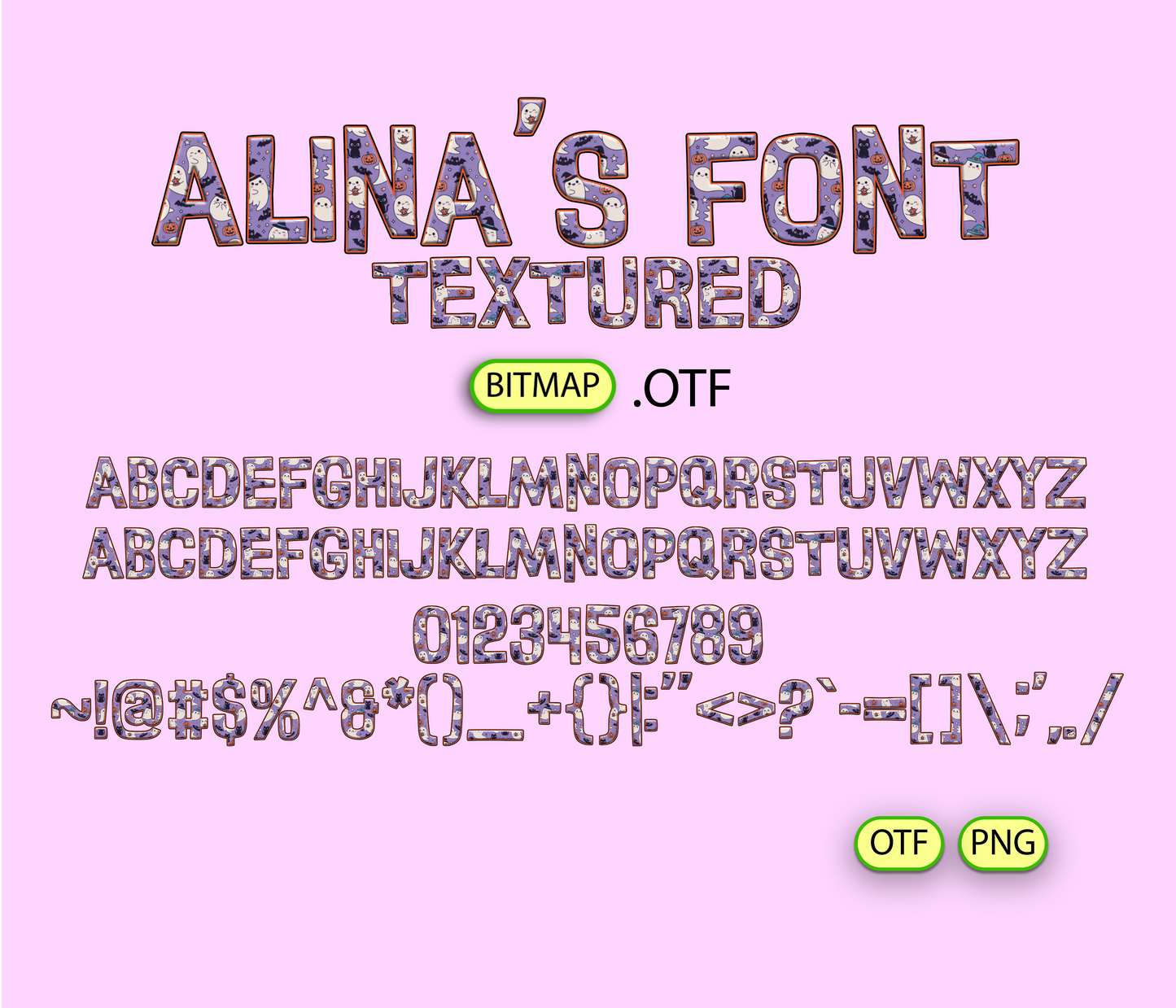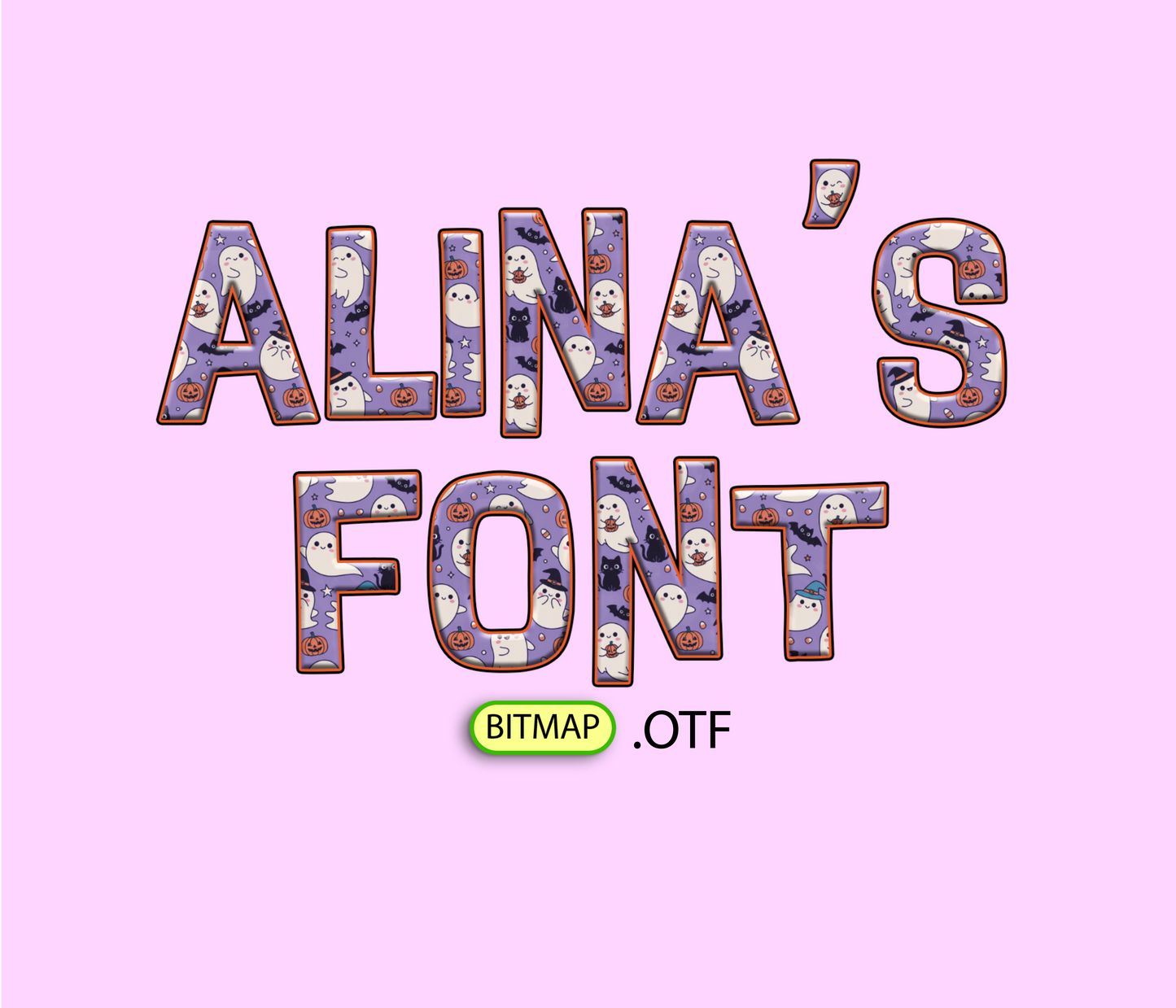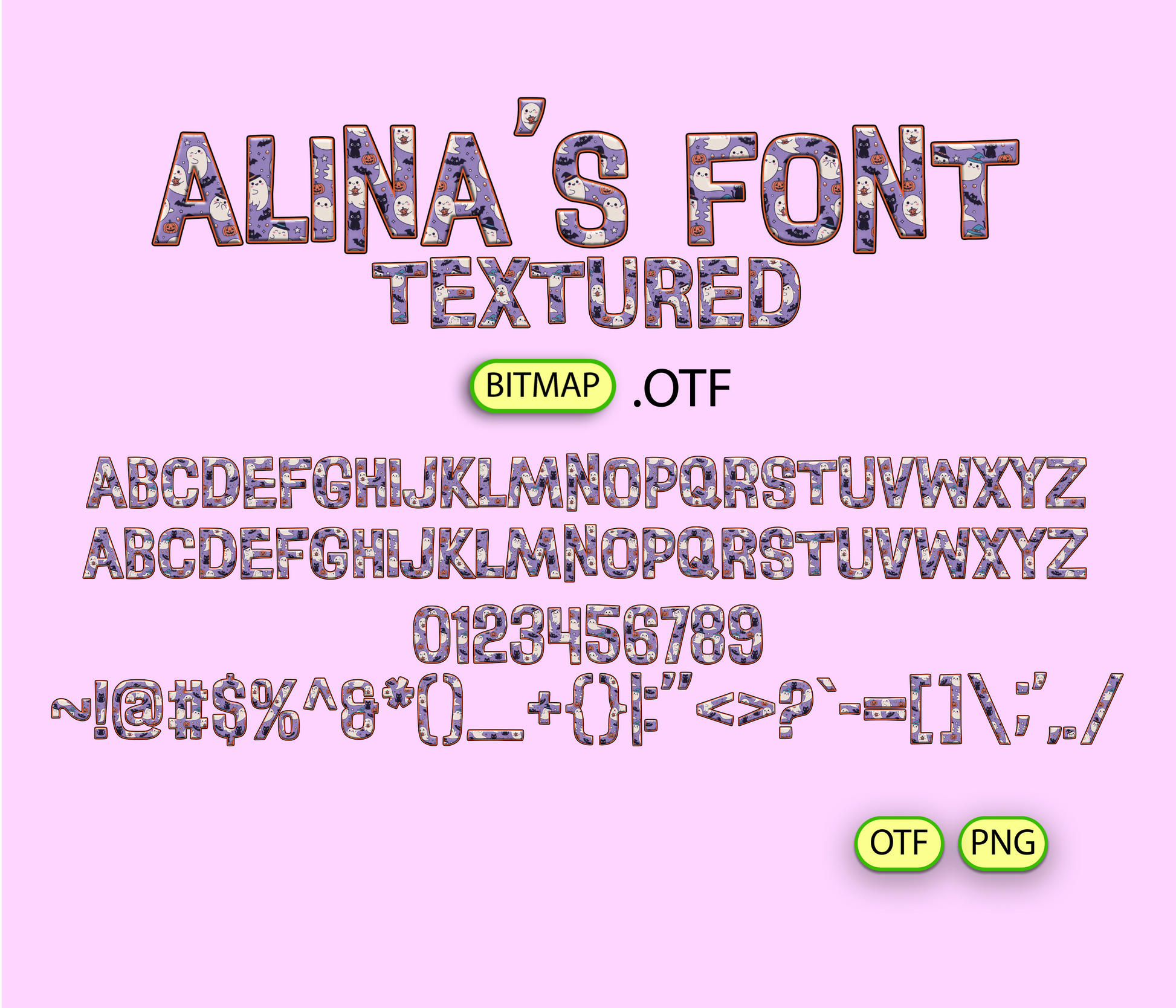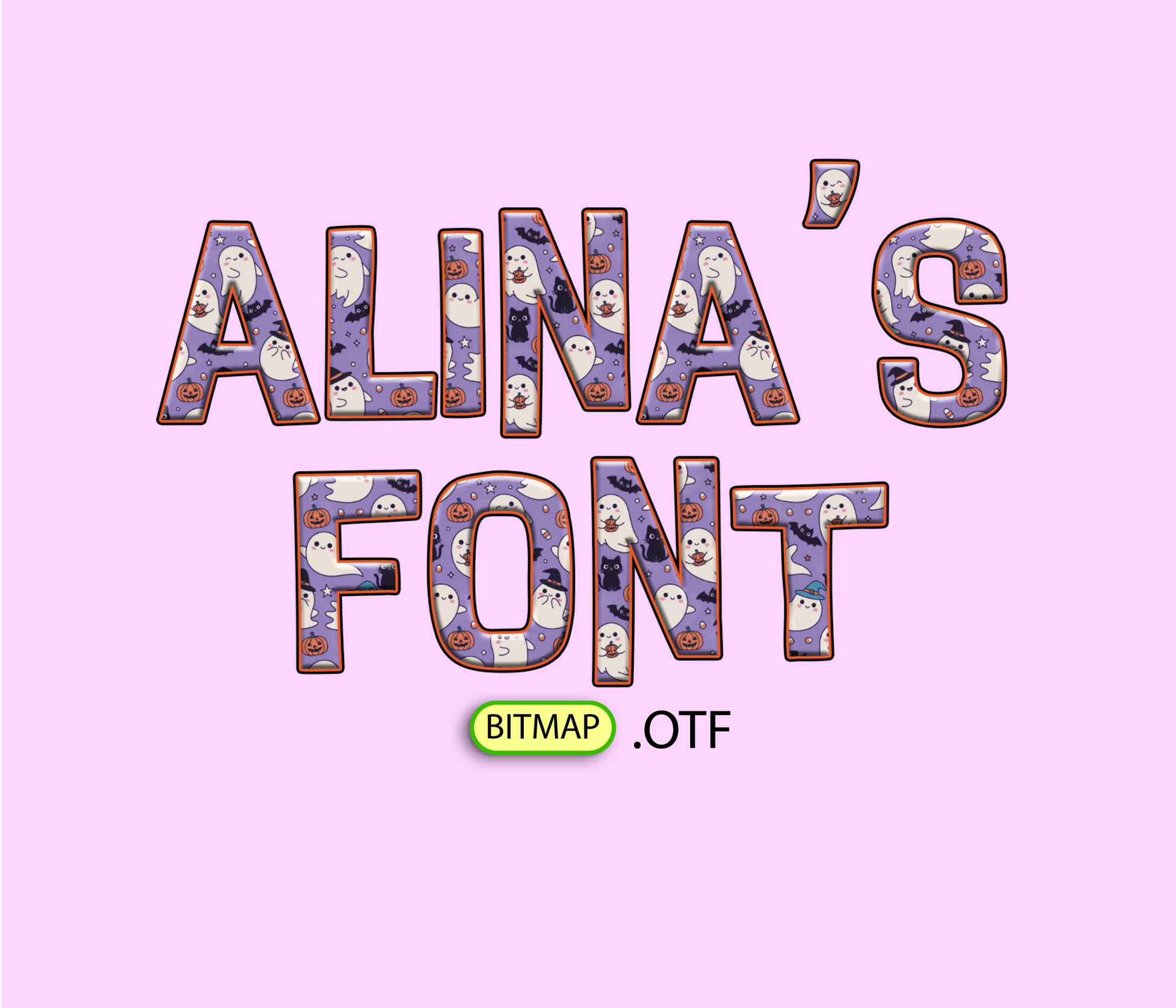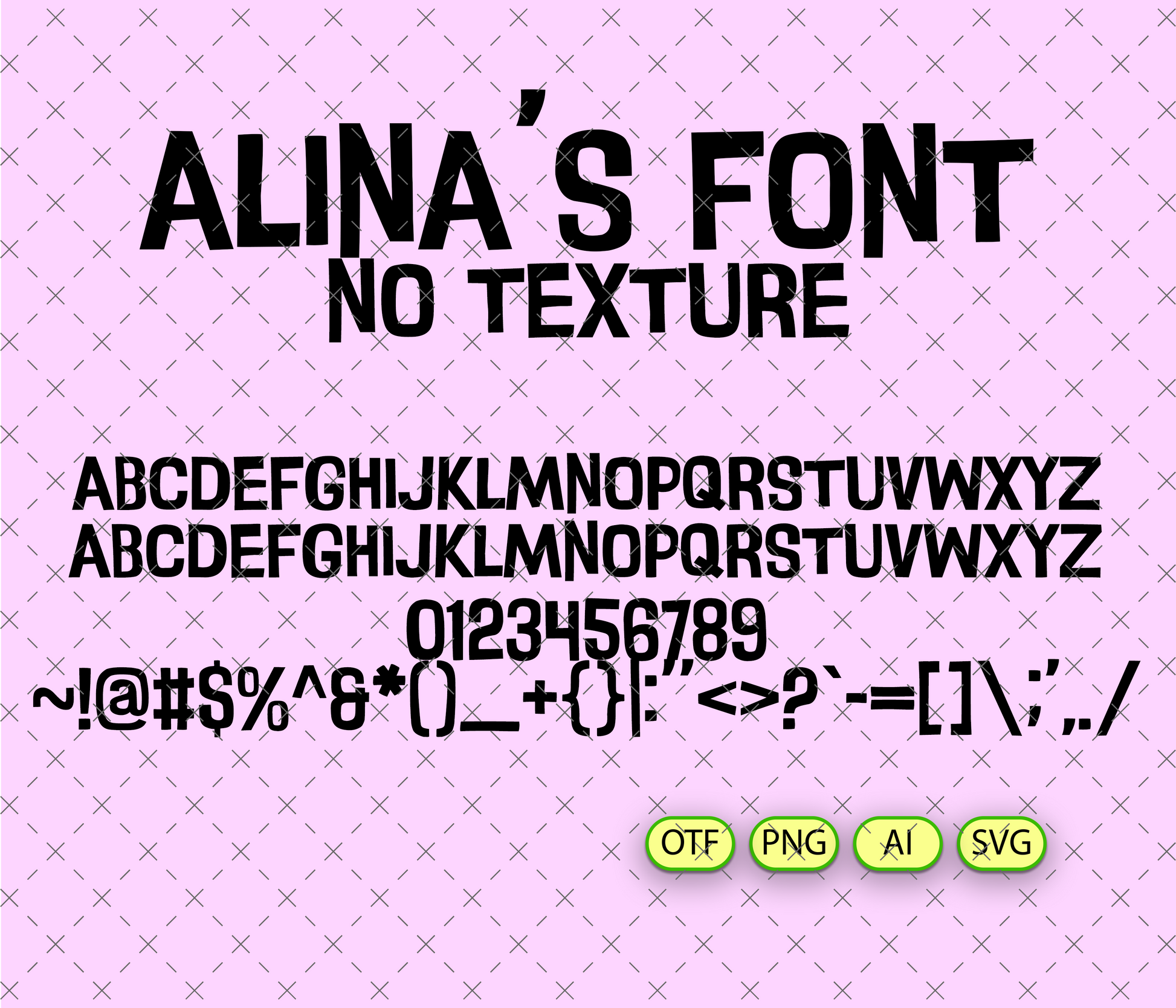
FREE Halloween Happy Ghosts Pattern Font
Step into the playful world of friendly spirits with our Happy Ghosts Halloween font, capturing the essence of cheerful hauntings and festive frights. Perfect for Halloween fans, party planners, event organizers, and designers, this font brings the whimsical, spooky spirit of joyful phantoms to your projects. Create delightful materials, merchandise, or digital content with the enchanting energy of happy haunts.
Our Happy Ghosts Halloween font features playful, bouncy lines and ghost-inspired characters reflecting the world of friendly spooks. Ideal for:
- Event Promotions: Create inviting invites, posters, and banners for Halloween parties, trick-or-treat events, and costume celebrations that capture the spirit of cheerful ghosts
- Merchandise Design: Perfect for t-shirts, posters, and accessories that showcase the whimsical aesthetic of friendly phantoms and festive hauntings
- Digital Media: Enhance websites, blogs, and social media with playful headers and graphics that express the joy of Halloween celebrations
- Seasonal Content: Add authentic flair to party decorations, Halloween projects, and creative designs inspired by happy haunting tales
- Personal Projects: Bring spooky fun to scrapbooking, DIY crafts, and home decor inspired by the world of friendly spirits
Our font pays tribute to the iconic world of friendly spirits, empowering your designs with its playful and festive spirit. Whether crafting promotional materials, designing merchandise, or adding a whimsical touch to personal projects, this font communicates the joyful essence of Halloween celebrations. Ready to inject cheerful spookiness into your creations? This font is your key to exciting, impactful design.